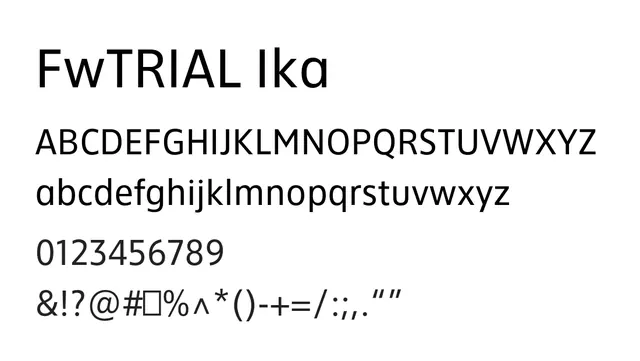
FwTRIAL Ika VAR
Humanist-grotesque variable sans-serif with warm proportions and excellent readability for digital and print.
Ideal for body text in interfaces and publications; the variable nature allows precise weight adjustment for any context, from delicate captions to sturdy headlines.
Partners with Ika Compact for a condensed alternative or McQueen VAR for a more distinctive display weight.